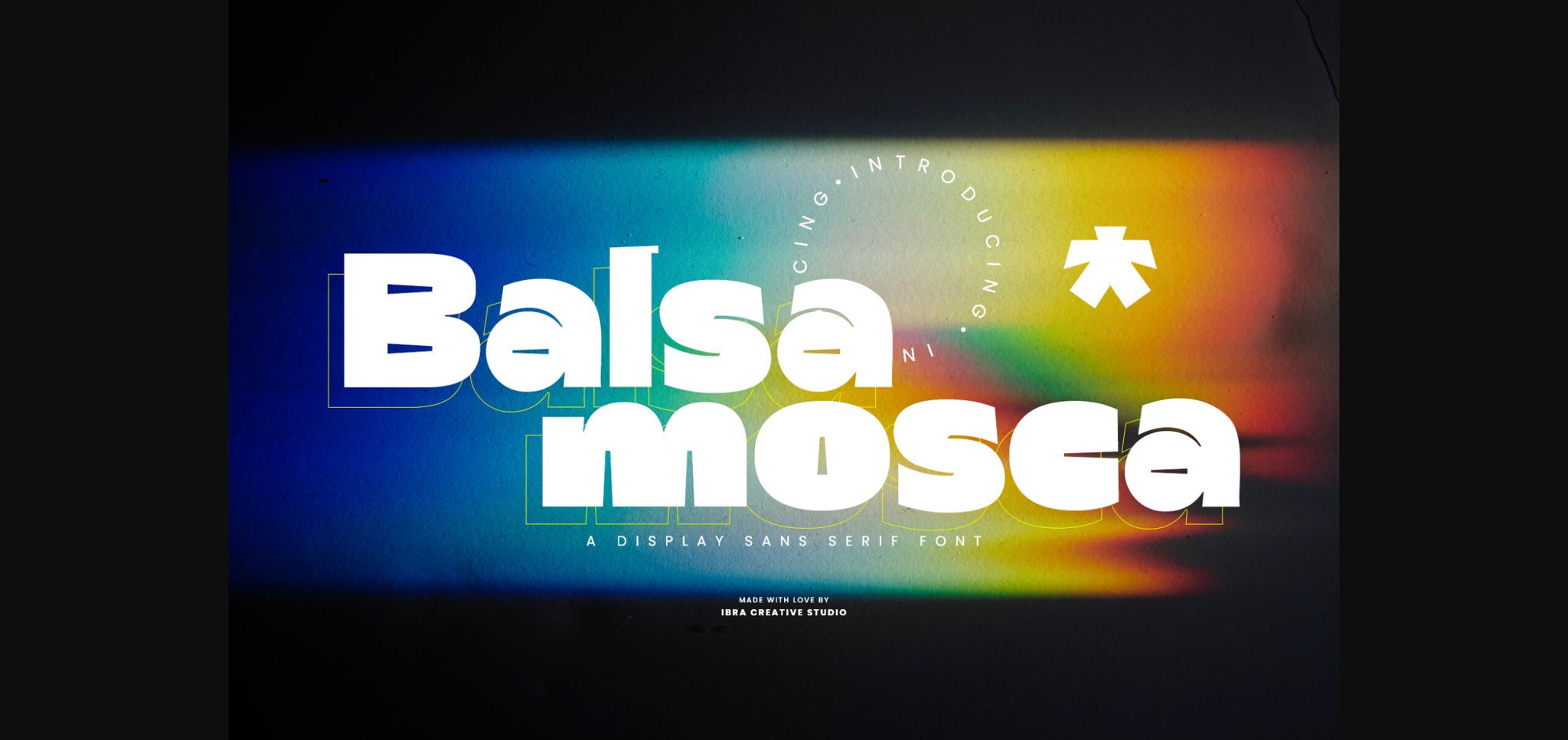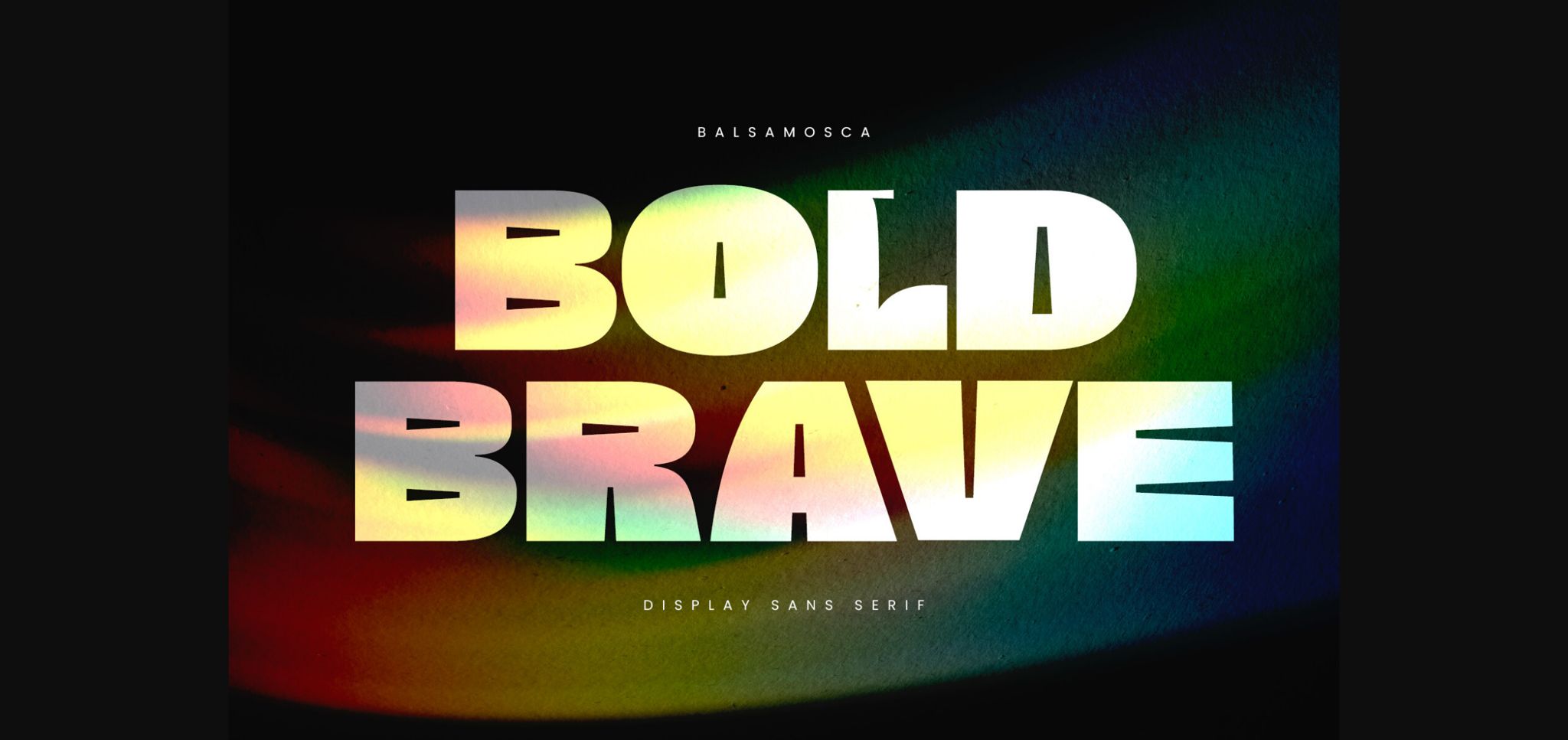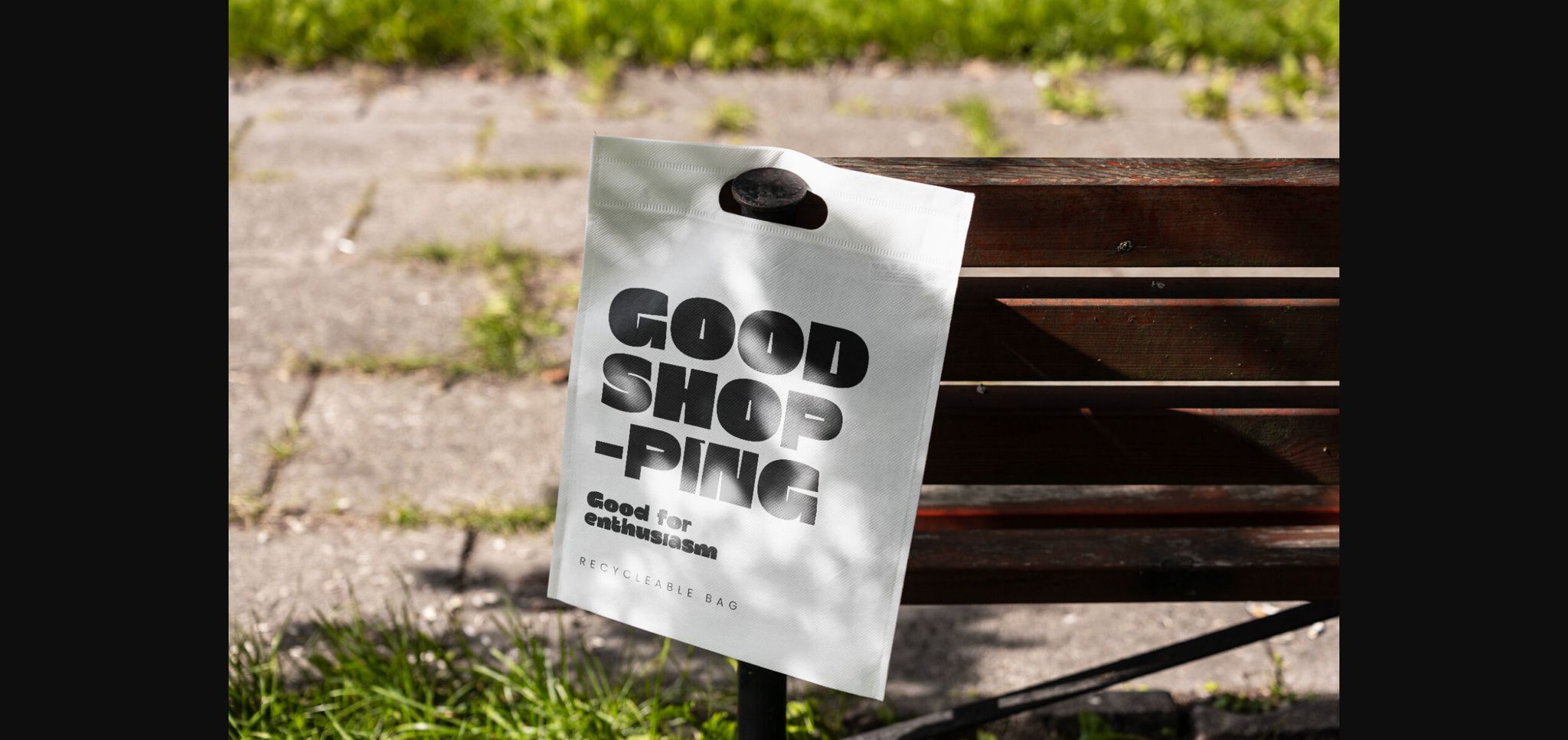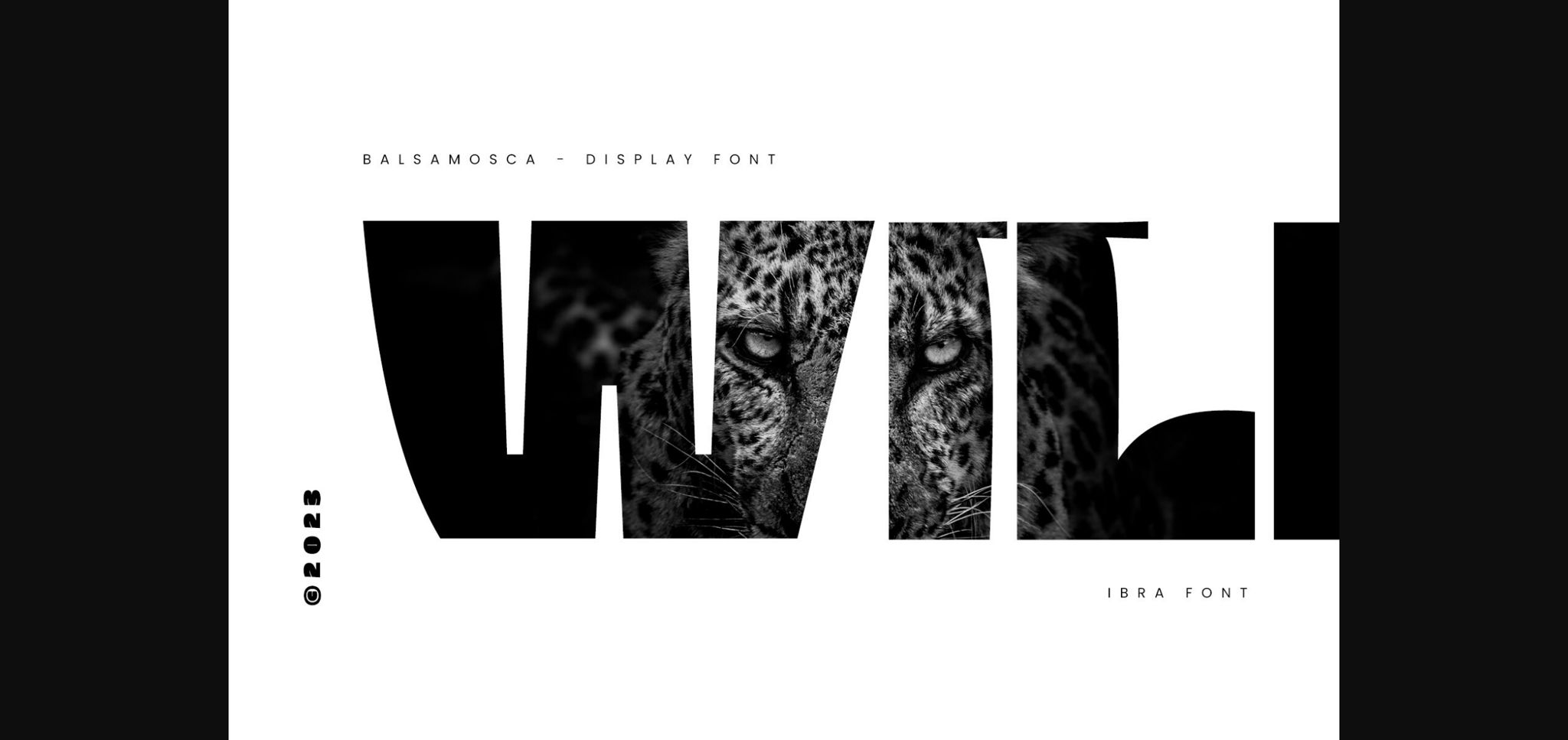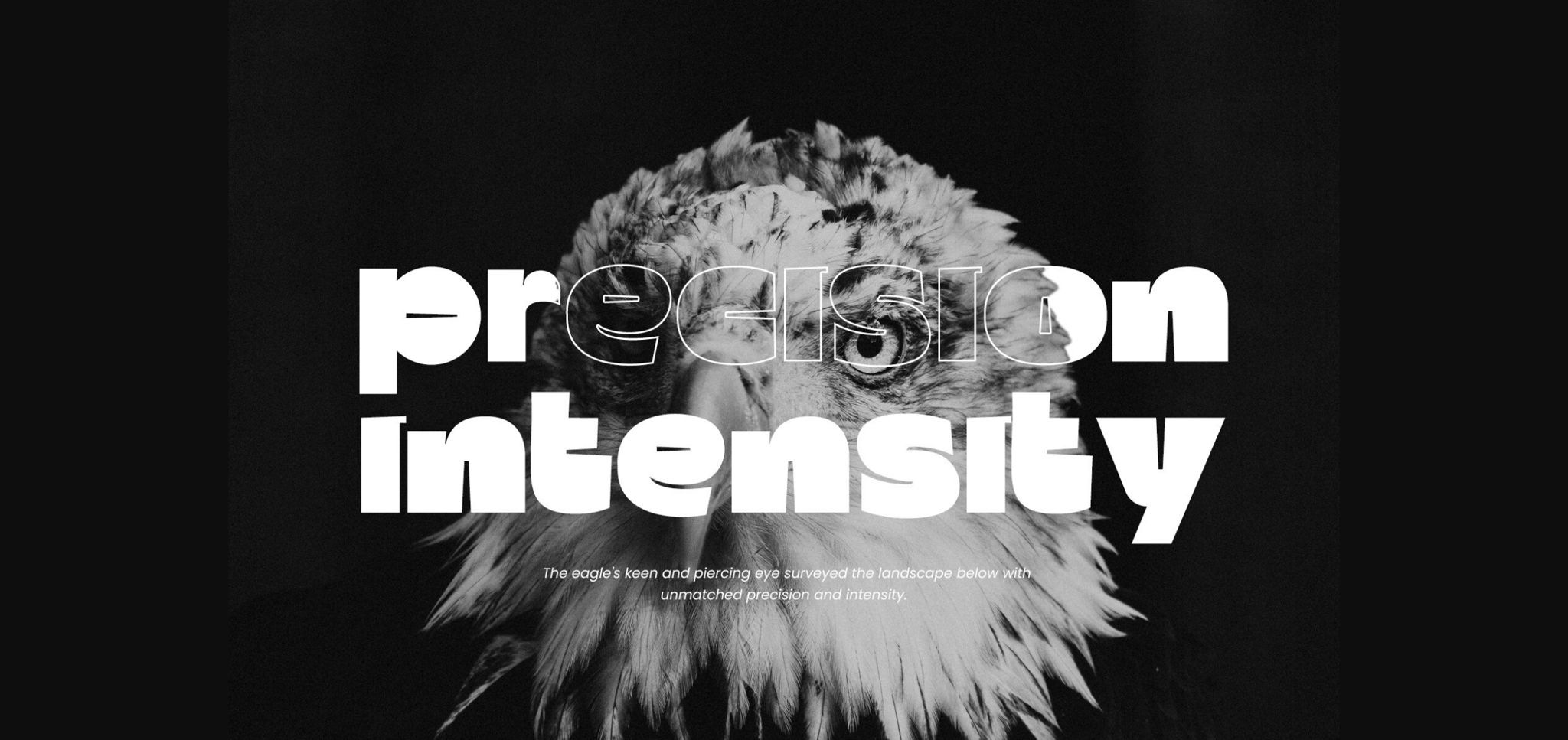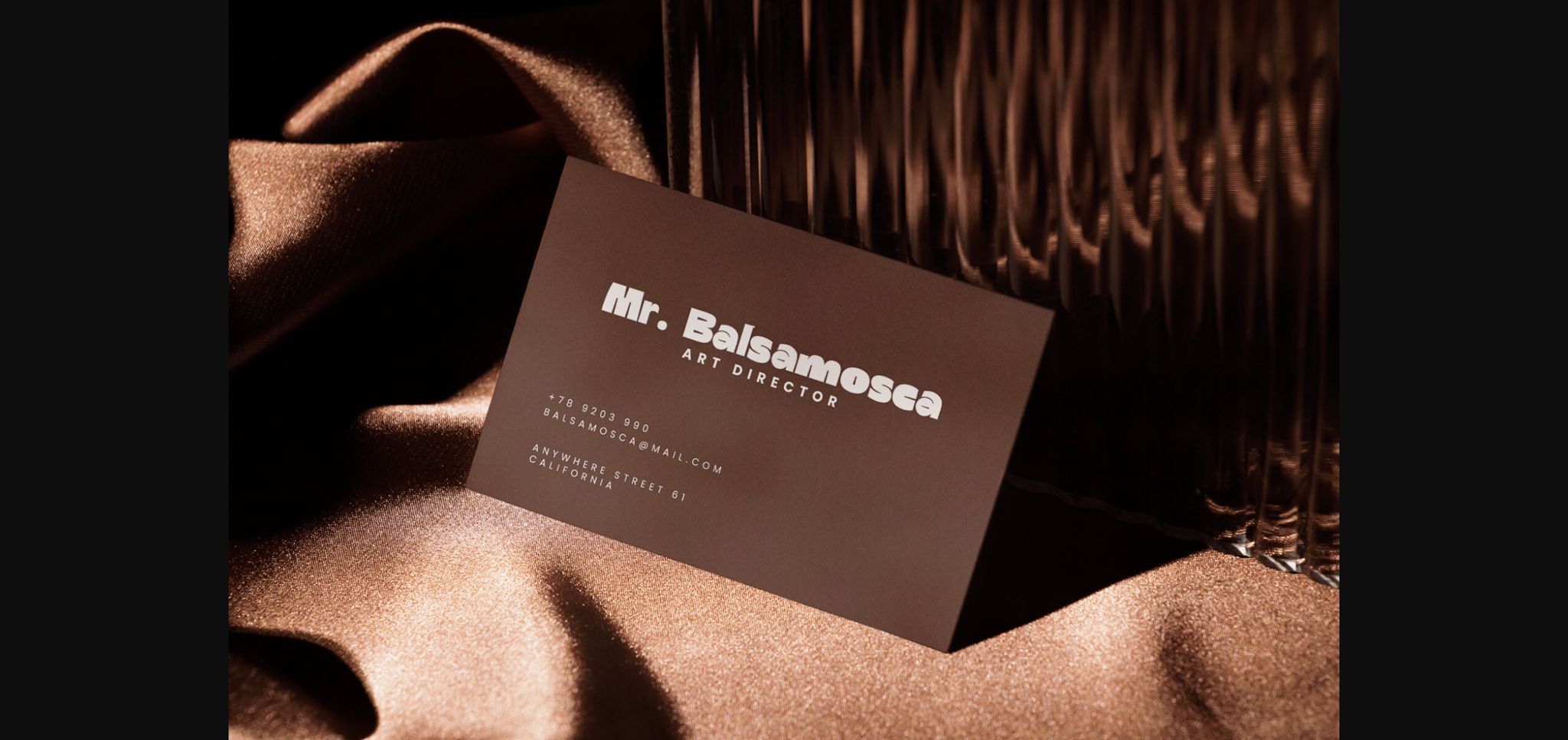
Balsamosca Font
About Balsamosca Font
Balsamosca is a captivating display sans-serif font that effortlessly commands attention and exudes modernity. Its clean, bold lines and geometric structure offer a sense of contemporary minimalism, while the well-balanced proportions and carefully designed characters provide a sleek and professional appearance.